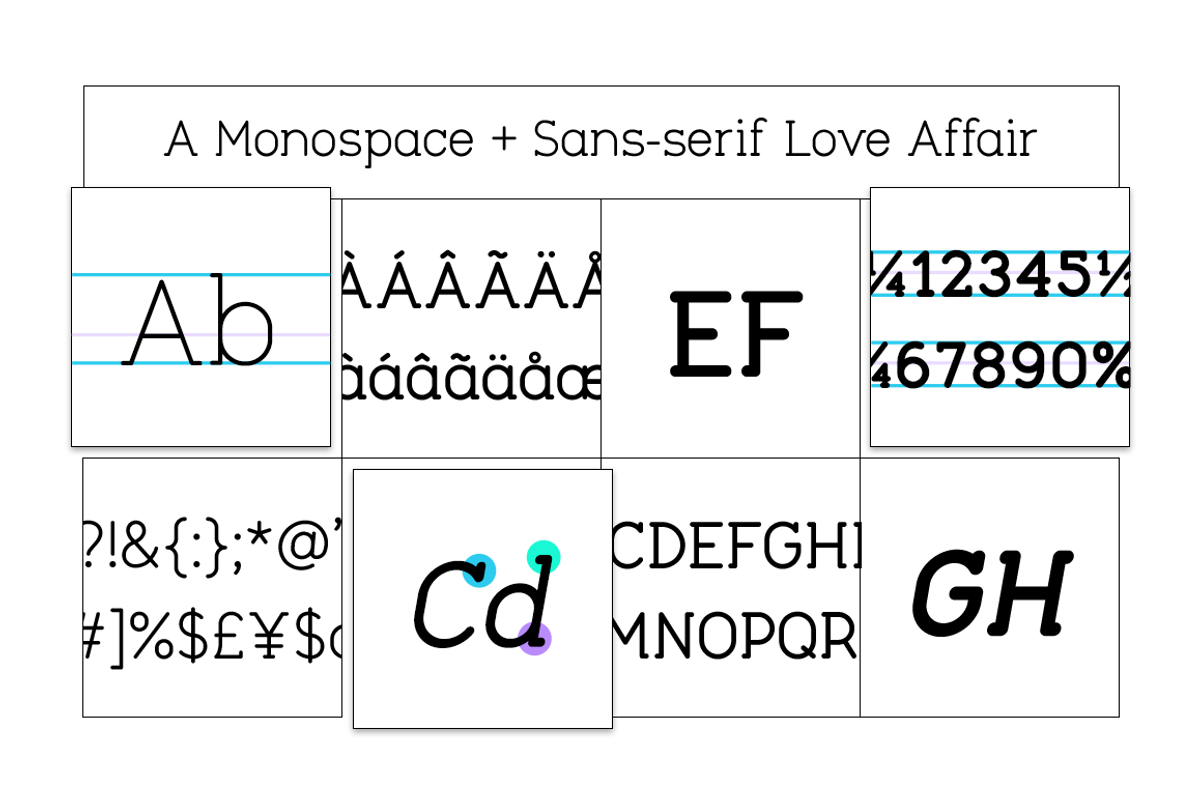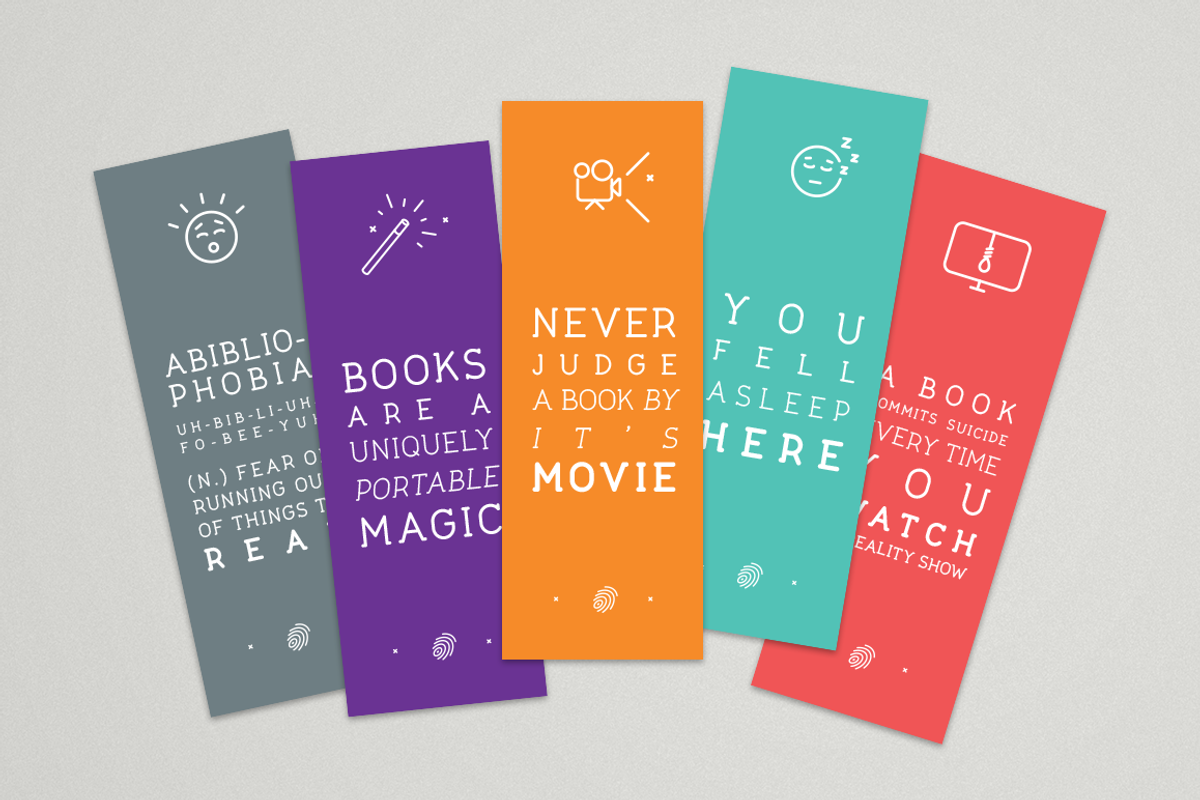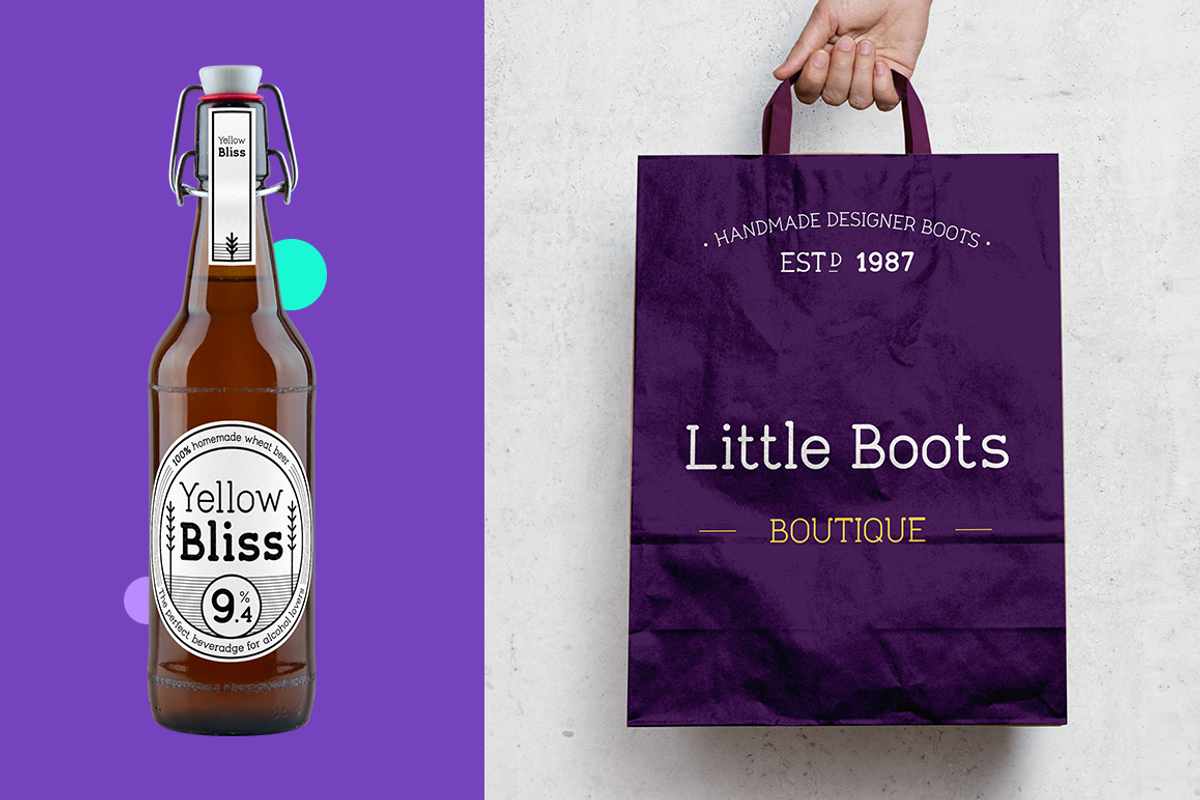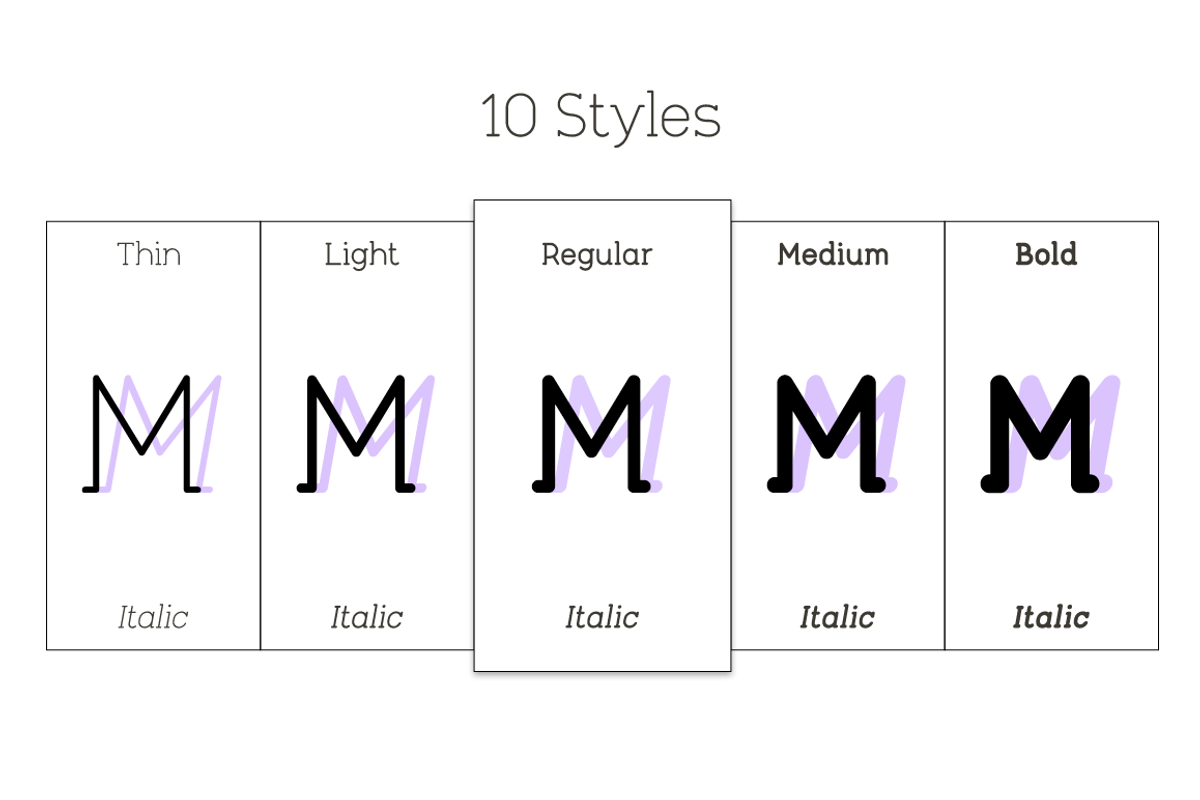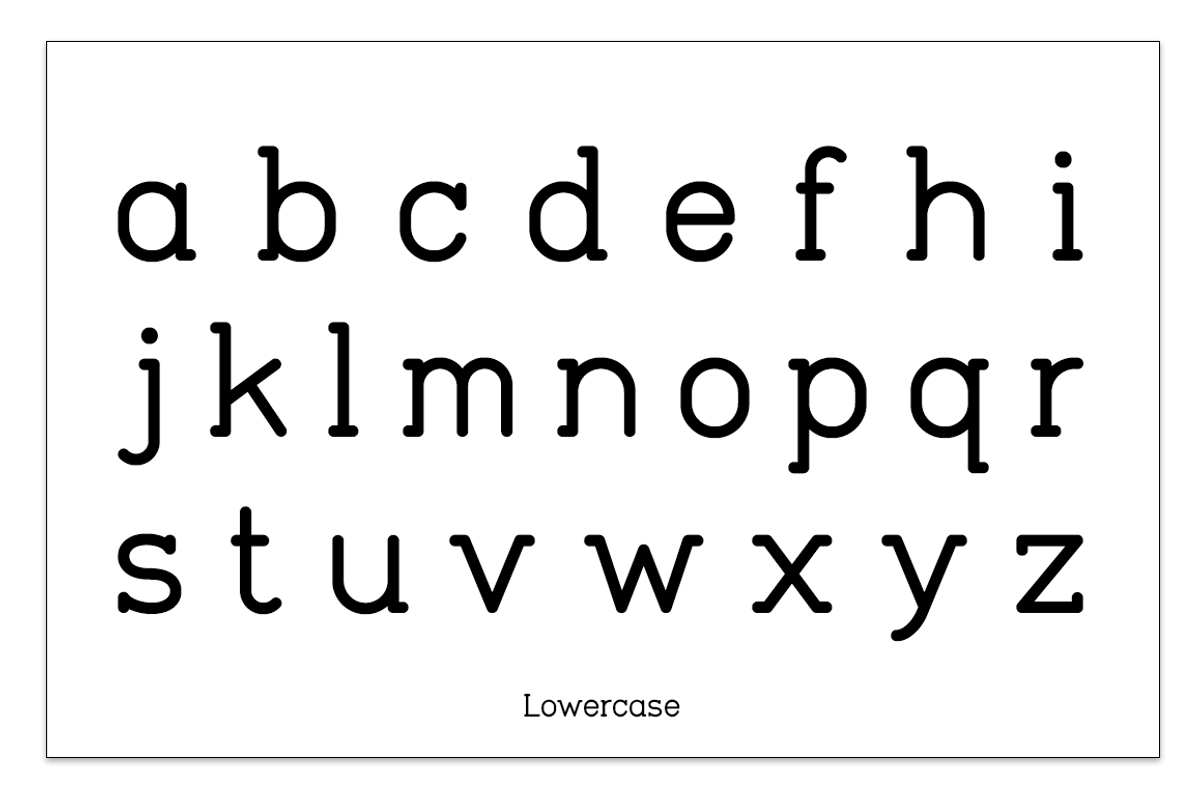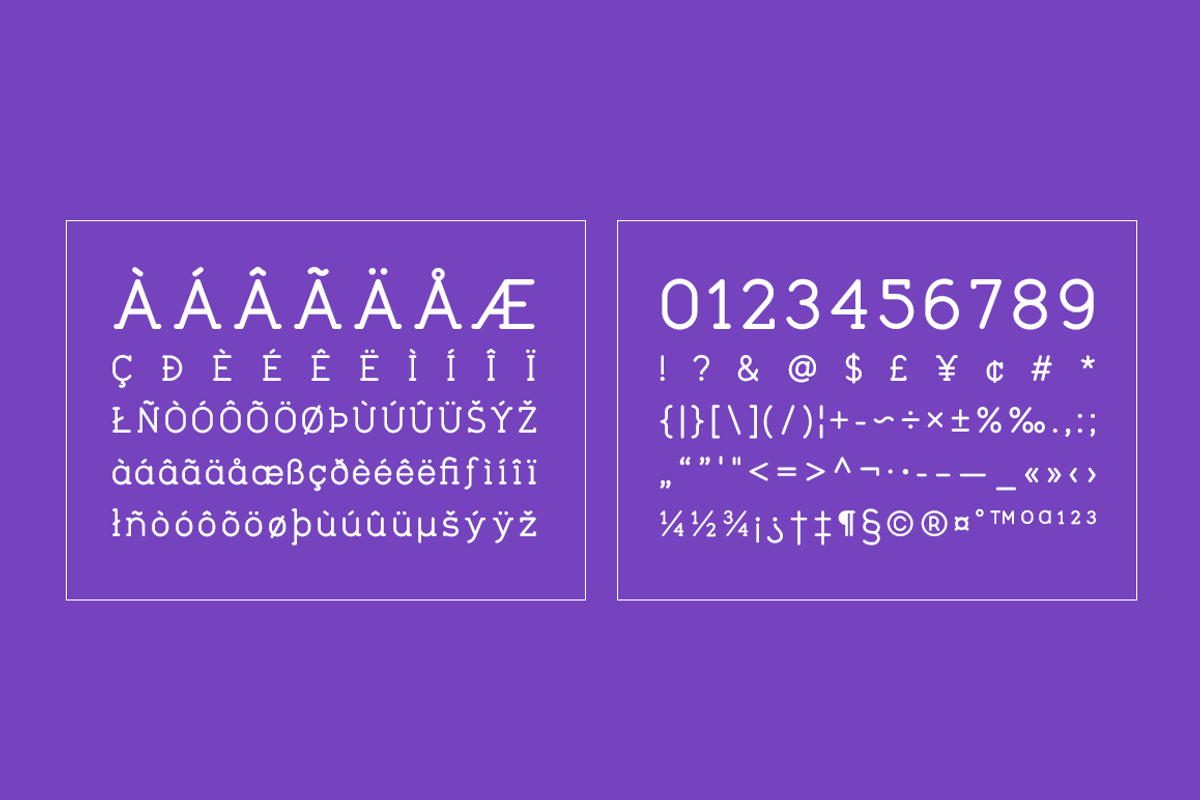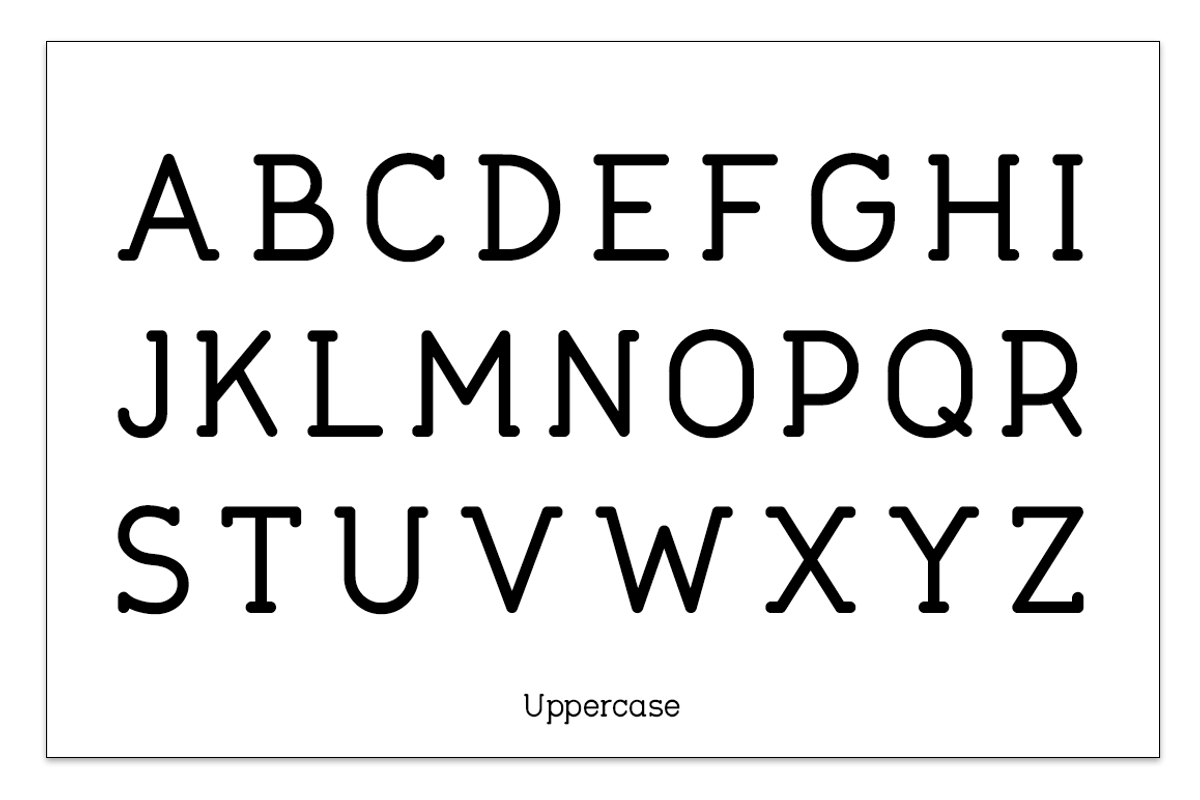
Tempoline Font (75% OFF!) by Poli Gilad is a font selected for branding, posters, packaging, typography.
Tempoline Font (75% OFF!) by Poli Gilad fits naturally into Branding, posters, packaging, typography.